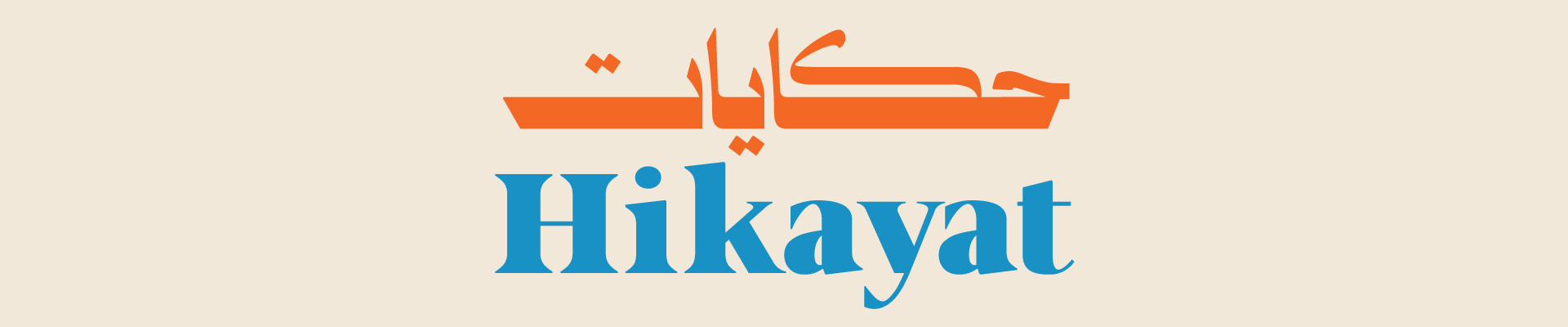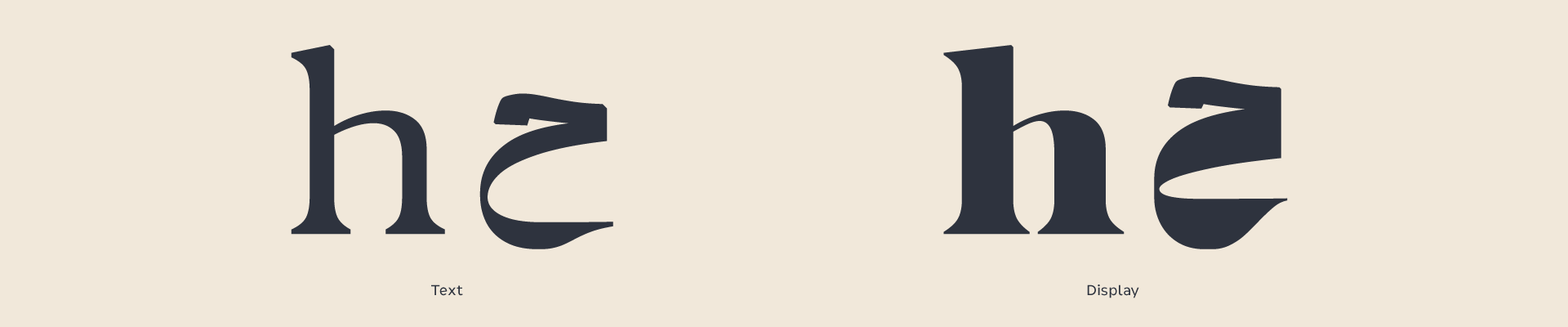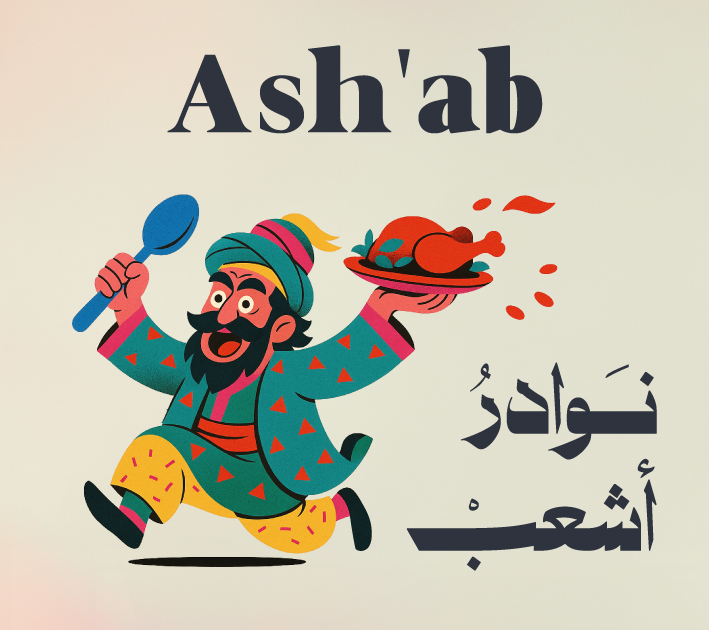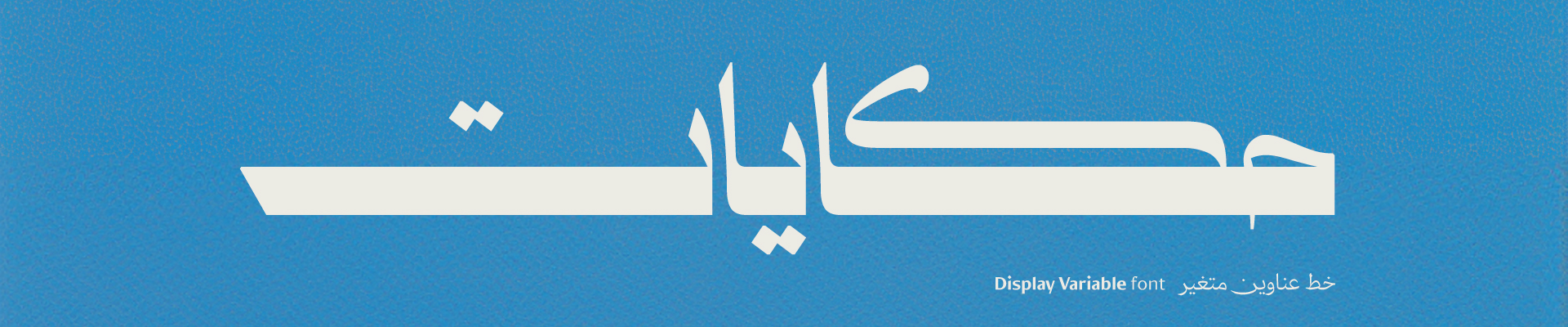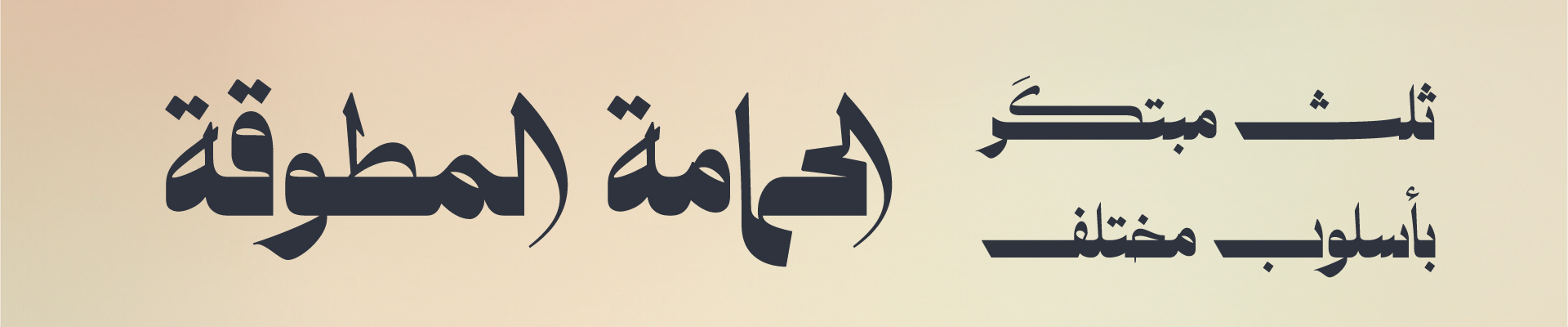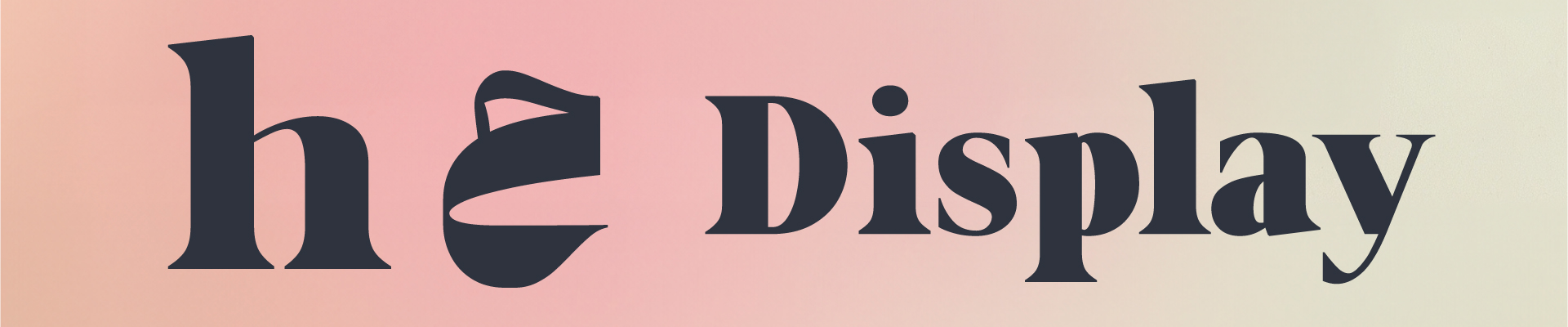
About Hikayat Font
Hikayat — A Variable Display Font Inspired by Thuluth script
While developing TS Thuluth typeface, we explored a side experiment: crafting a display and text typeface inspired by the elegance of traditional Thuluth, but optimized for bold, high-contrast headlines.
Hikayat is a variable font that gives designers expressive control over the stretch and proportions of wide bowls, making it ideal for dynamic layouts and poster design.
In 2026, we introduced a new variable axis that allows users to switch between display and body text.
The font supports both Arabic and Latin scripts. It features a rich set of ligatures and stylistic alternates inspired by traditional Thuluth script, infusing it with a refined yet contemporary character.